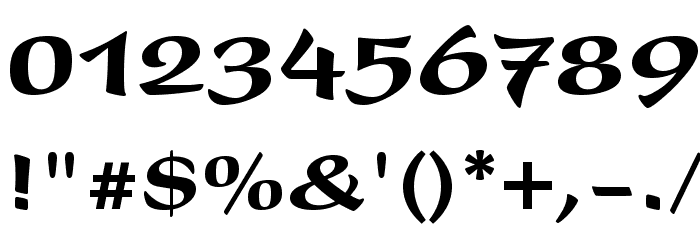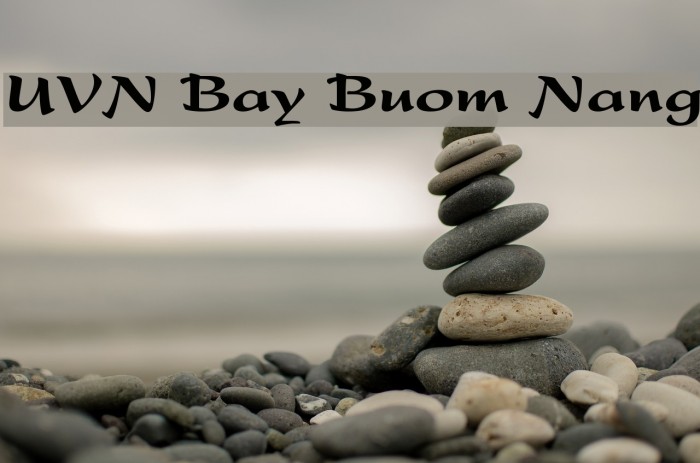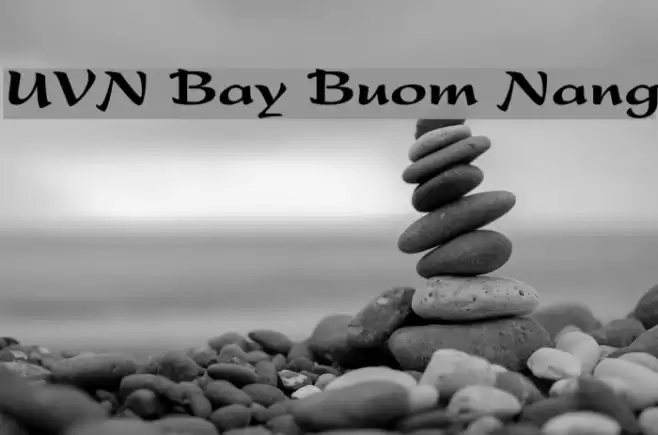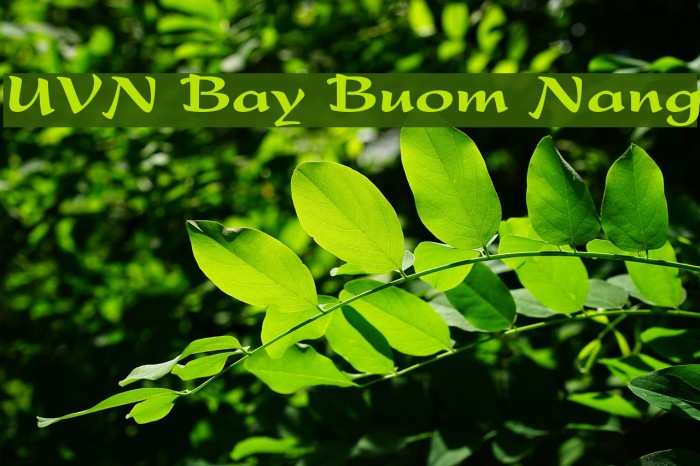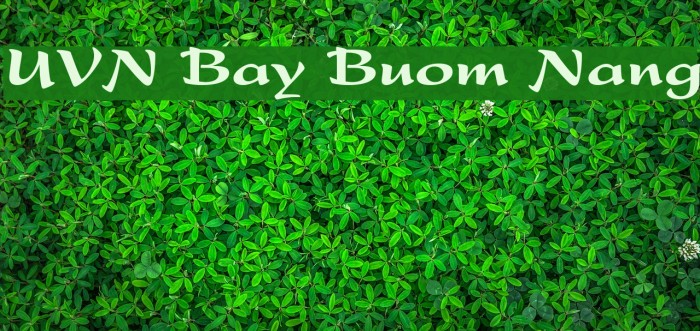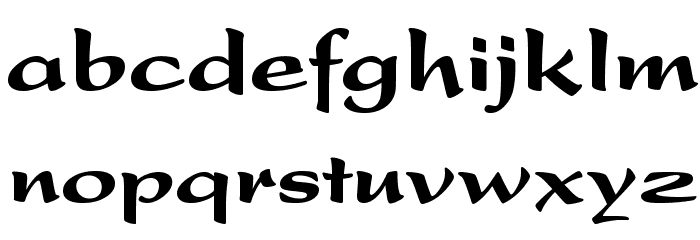
UVN Bay Buom Nang Font
This font features a bold and dynamic style with a distinct flair. The characters have a calligraphic influence, showcasing elegant curves and a slight slant that adds movement and energy. The uppercase letters are particularly striking, with exaggerated serifs and a strong presence. The lowercase letters maintain the same fluidity, creating a harmonious balance. Numbers and special characters are designed with the same attention to detail, ensuring consistency throughout. The overall appearance is both artistic and readable, making it suitable for creative projects.
A bold, calligraphic font with elegant curves and dynamic style.
• Proposed Projects: Ideal for branding, invitations, posters, and artistic projects that require a touch of elegance and flair.